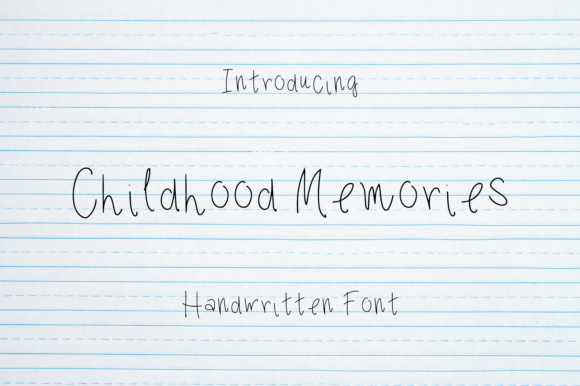
Embark on a nostalgic journey with Childhood Memories Font, a whimsical and heartwarming script font that captures the essence of childhood's carefree spirit. Crafted by Corryn Bamber, this font exudes a playful charm, evoking memories of laughter, learning, and the boundless imagination of youth.
Immerse yourself in the font's charmingly uneven characters, reminiscent of a child's first attempts at writing. Each letter dances across the page with an innocent grace, resembling the scribbles on a chalkboard or the notes in a child's diary. Childhood Memories Font embraces the beauty of imperfection, celebrating the unique style and personality of every child.
Step into the world of teachers, tutors, and educators, where Childhood Memories Font shines as a beacon of creativity and inspiration. Its open-spaced characters provide ample room for imagination to flourish, making it the perfect choice for educational materials, worksheets, and classroom decorations. Transform lessons into magical adventures, where learning becomes a joyous exploration of knowledge.
Whether you're a teacher seeking to engage young minds, a tutor striving to make learning fun, or a parent looking to spark your child's creativity, Childhood Memories Font is the ultimate companion. Its playful spirit brings a touch of whimsy to any project, capturing the wide-eyed wonder of childhood.
Unleash your inner child and embrace the joy of learning with Childhood Memories Font. Let its whimsical charm take you back to a time of innocence and boundless imagination. Immerse yourself in the font's playful characters, and watch as your words dance across the page, carrying the magic of childhood with them.